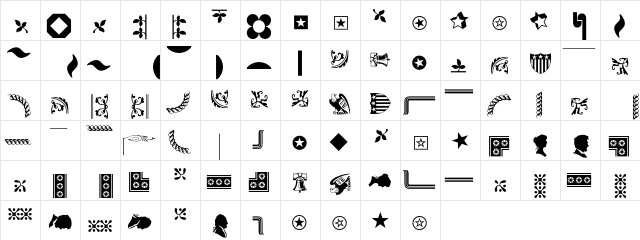
BordersOrnament 1 Regular
Design Context for BordersOrnament 1 Typeface
BordersOrnament 1 brings ornamental detail and strong personality to headlines and identities, where visual impact matters more than quiet functionality.
Font Pairing: Pair with a clean neutral sans-serif for body copy to let BordersOrnament 1's character lead without overwhelming the composition.
Pro Tip: Treat BordersOrnament 1 as the centrepiece of your typographic hierarchy. One strong heading set in a decorative face can carry an entire layout.